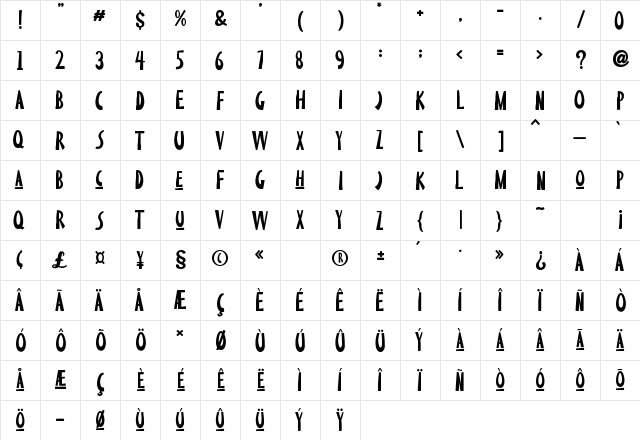
Limestone Ridge Press Regular
| Foundry | Wellscript Studio |
| Designer | Welianto |
Design Context for Limestone Ridge Press Typeface
Limestone Ridge Press offers clean, dependable letterforms without strong stylistic allegiance, making it a practical choice for designers who need flexibility.